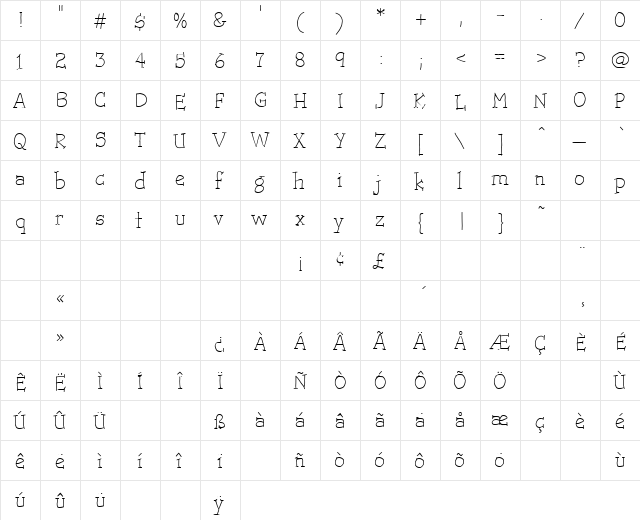
Trots Light - HMK Regular
Design Context for Trots Light - HMK Typeface
Trots Light - HMK takes a measured approach to typography — its balanced proportions and neutral character make it a reliable workhorse for both digital and print work. The delicate stroke weight brings airiness and refinement to layouts.